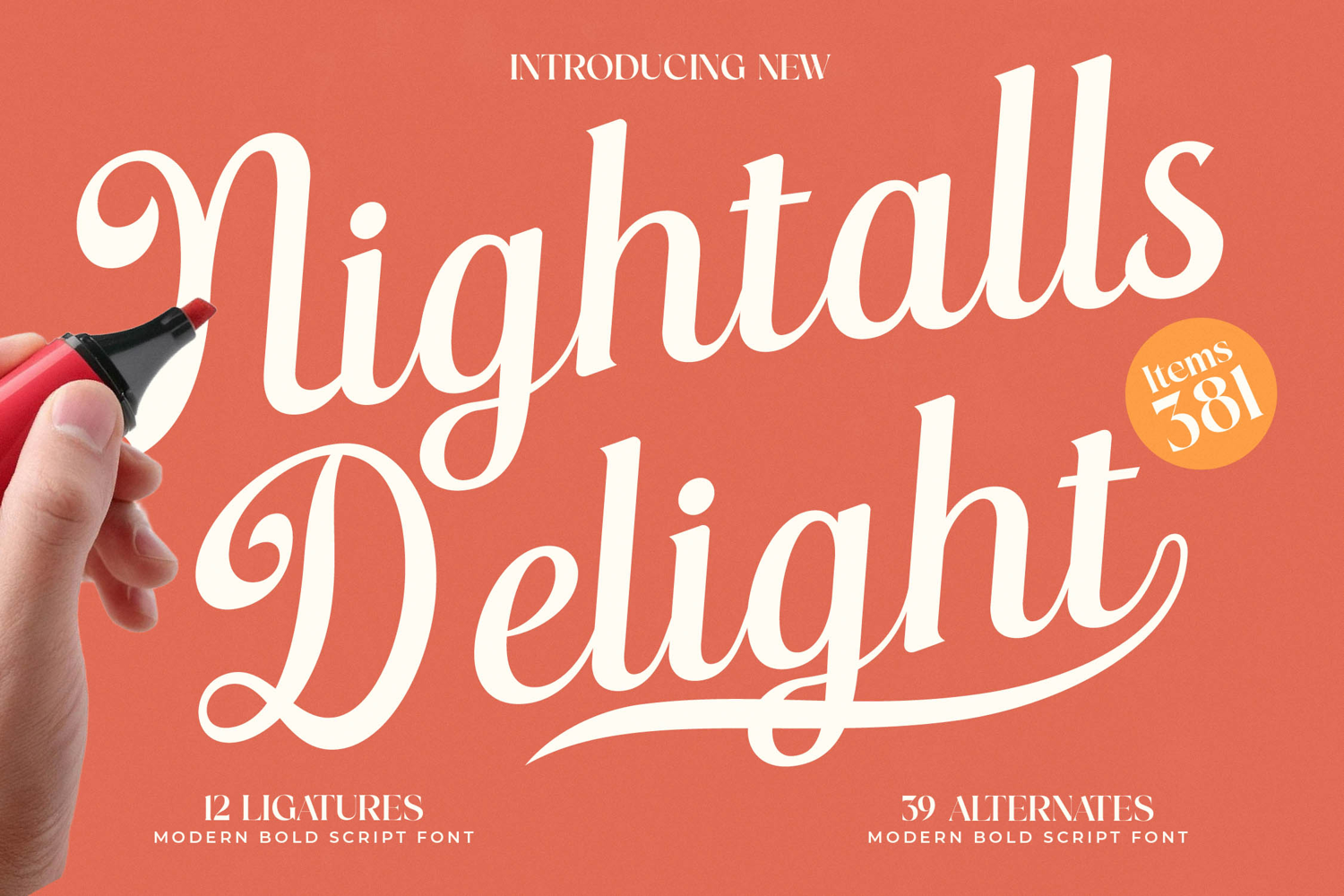
Nightalls Delight - Modern Bold Script Font
Elevate your designs with Font Nightalls Delight - Modern Bold Script Font Script, a truly captivating typeface blending classic script elegance with a contemporary, bold presence. This exquisite font radiates high-contrast charm, featuring thick-to-thin strokes that command attention while maintaining sophisticated fluidity. Its warm, inviting curves create an instantly memorable aesthetic, ideal for powerful visual statements across various mediums.
Unleash unparalleled creative potential with Font Nightalls Delight - Modern Bold Script Font Script’s rich character set. Boasting numerous flowing ligatures and extensive alternate characters, this font offers exceptional design flexibility, enabling truly personalized typography. Meticulously designed for seamless connections, it delivers an authentic, handcrafted feel, empowering designers to infuse a bespoke touch into every project.
Expand your brand's reach with the inherent versatility of Font Nightalls Delight - Modern Bold Script Font Script. With its extensive multilingual support, Font Nightalls Delight - Modern Bold Script Font Script adapts seamlessly across global markets, making it incredibly versatile for international projects. This comprehensive language coverage ensures your message resonates clearly, enhancing its broad appeal and utility.
Discover the ultimate tool for creating an impactful brand identity. Font Nightalls Delight - Modern Bold Script Font Script is perfect for luxury branding, elegant packaging, editorial design, and sophisticated invitations. Its distinctive flair makes it an exceptional choice for eye-catching headlines, memorable logos, and captivating social media graphics, guaranteeing a lasting, professional impression.